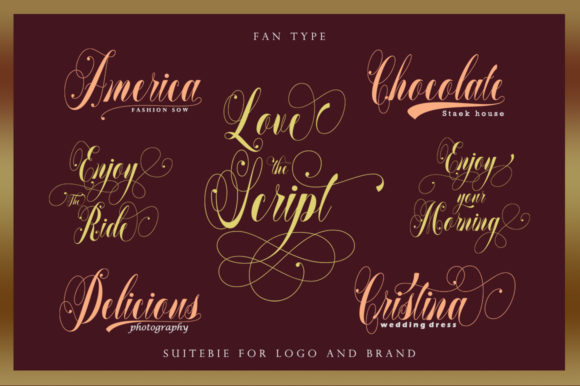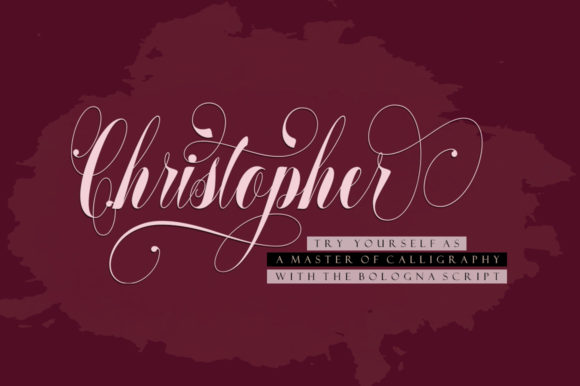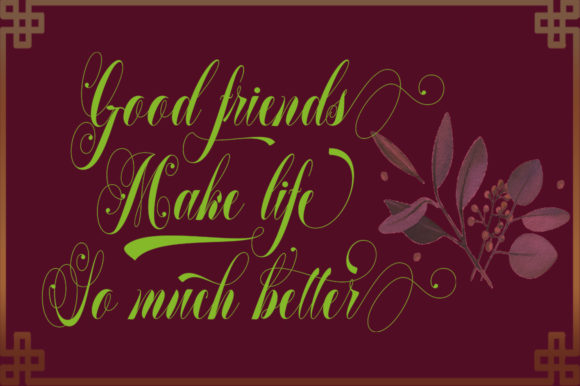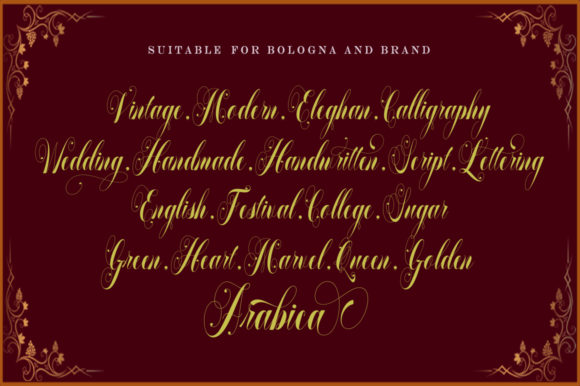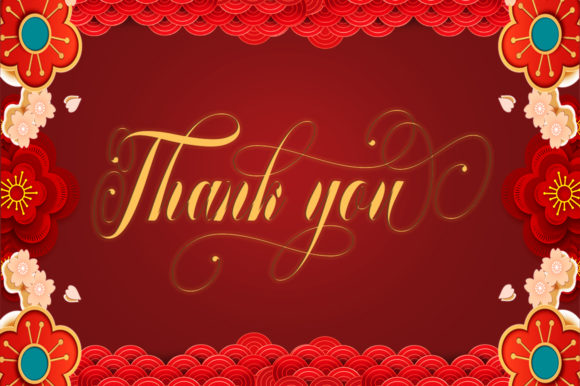
The Elegance of Bologna Font: A Designer’s Delight
I’ll never forget the time I was working on a wedding invitation project, and my client asked for a font that exuded elegance and sophistication. I scoured the internet, tried out countless fonts, but none seemed to fit the bill. That was until I stumbled upon the beautiful Bologna font. With its wide kerning and refined aesthetic, it was love at first sight! In this article, I’ll share my experience with Bologna font, its features, and how to make the most of it in your designs.
An Honest Review of Bologna Font
- ✨ Elegant and refined aesthetic, perfect for formal occasions
- ✅ Wide kerning, making it easy to read and visually appealing
- 💕 Beautiful in wedding invitations, thank you cards, quotes, greeting cards, logos, business cards, and more
- 🎨 Highly versatile, suitable for various design projects
While Bologna font is an excellent choice, there are a few things to keep in mind:
- 🤔 May not be the best choice for body text, as it’s more suited for headings and titles
- ⚠️ Limited availability of stylistic alternates, which may limit creative options
A Practical Guide to Using Bologna Font
The Designer Inspiration Behind Bologna Font
Bologna font was inspired by the classic typography of Italy. Its elegant lines and refined aesthetic are reminiscent of the country’s rich design heritage. The font’s creator aimed to capture the essence of Italian style, making it perfect for formal occasions and elegant designs.
Q: What is the best way to use Bologna font?
A: Bologna font is best used for titles, headings, and formal documents. Its elegant aesthetic and wide kerning make it perfect for wedding invitations, thank you cards, quotes, greeting cards, logos, business cards, and more.
Q: Can I use Bologna font for body text?
A: While Bologna font is beautiful, it’s not the best choice for body text. Its elegant aesthetic and wide kerning make it more suited for headings and titles.
Q: Is Bologna font available in different styles?
A: Bologna font has limited stylistic alternates, but its elegant aesthetic and refined lines make it highly versatile.